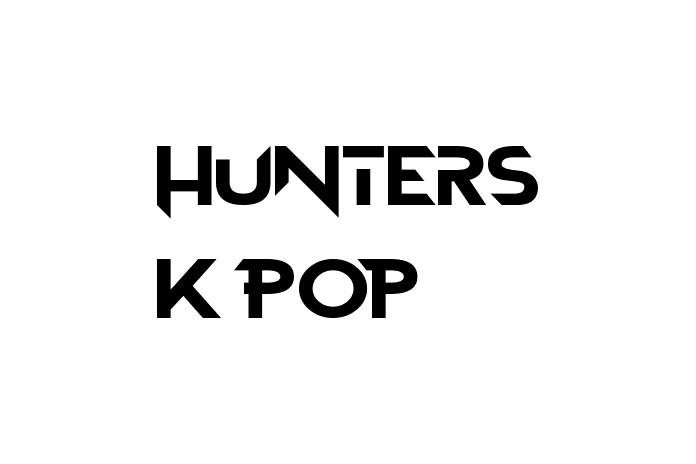
HyperTurfu
HyperTurfu Free
Introducing the modern HyperTurfu Font, is a cool and modern techno looking display Font This font is ideal for writing web designs, business cards, or pretty much anything else that requires a unique touch, this font designed by Bisou is available for free download and personal use.
Font name HyperTurfu
Font designer Bisou
Font Family HyperTurfu
Typeface classification Techno